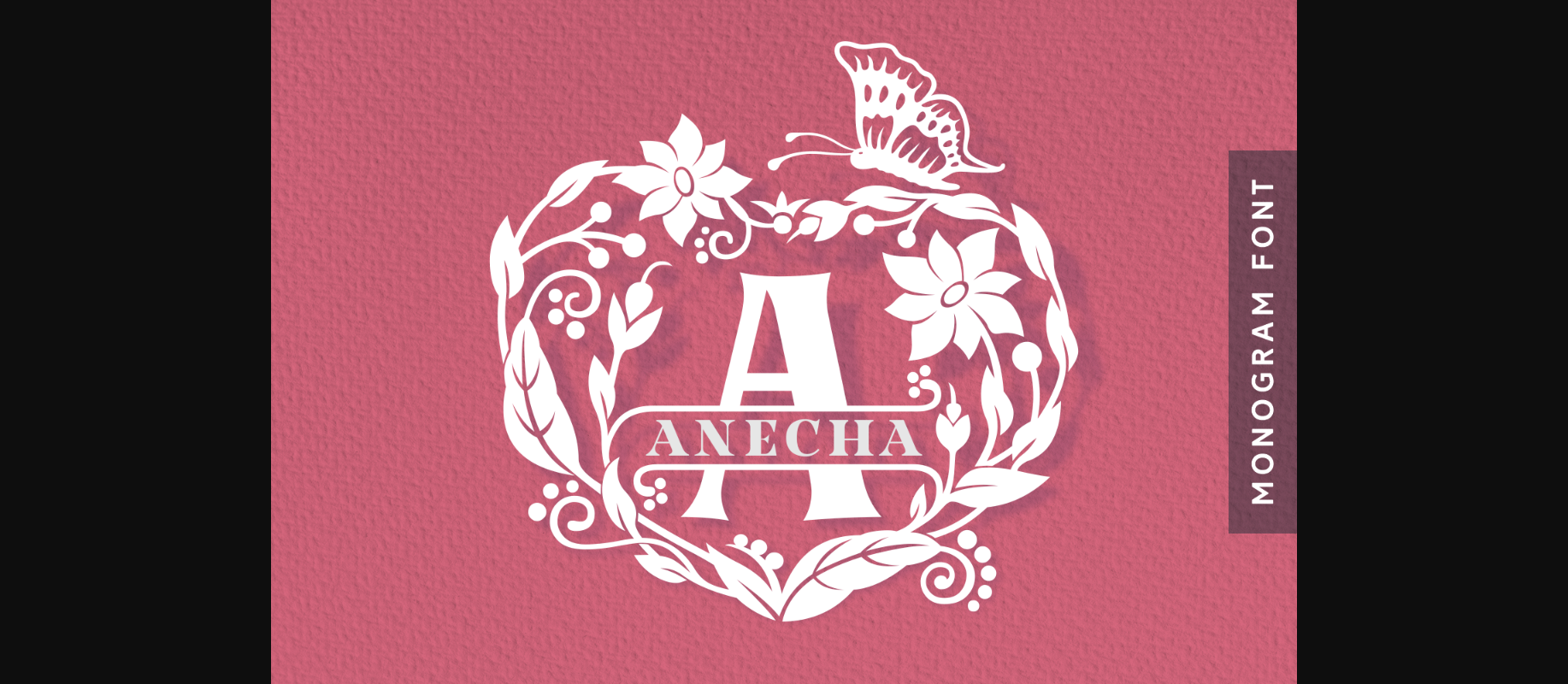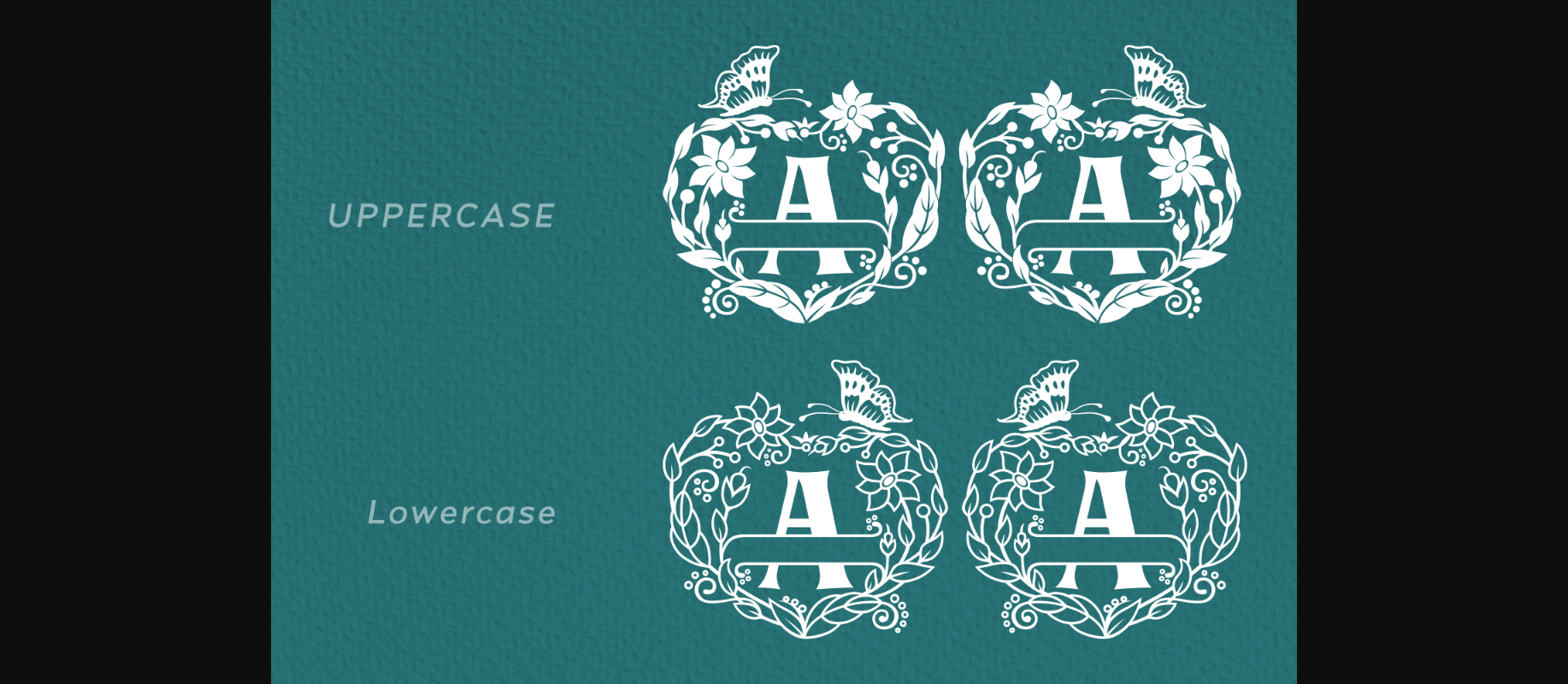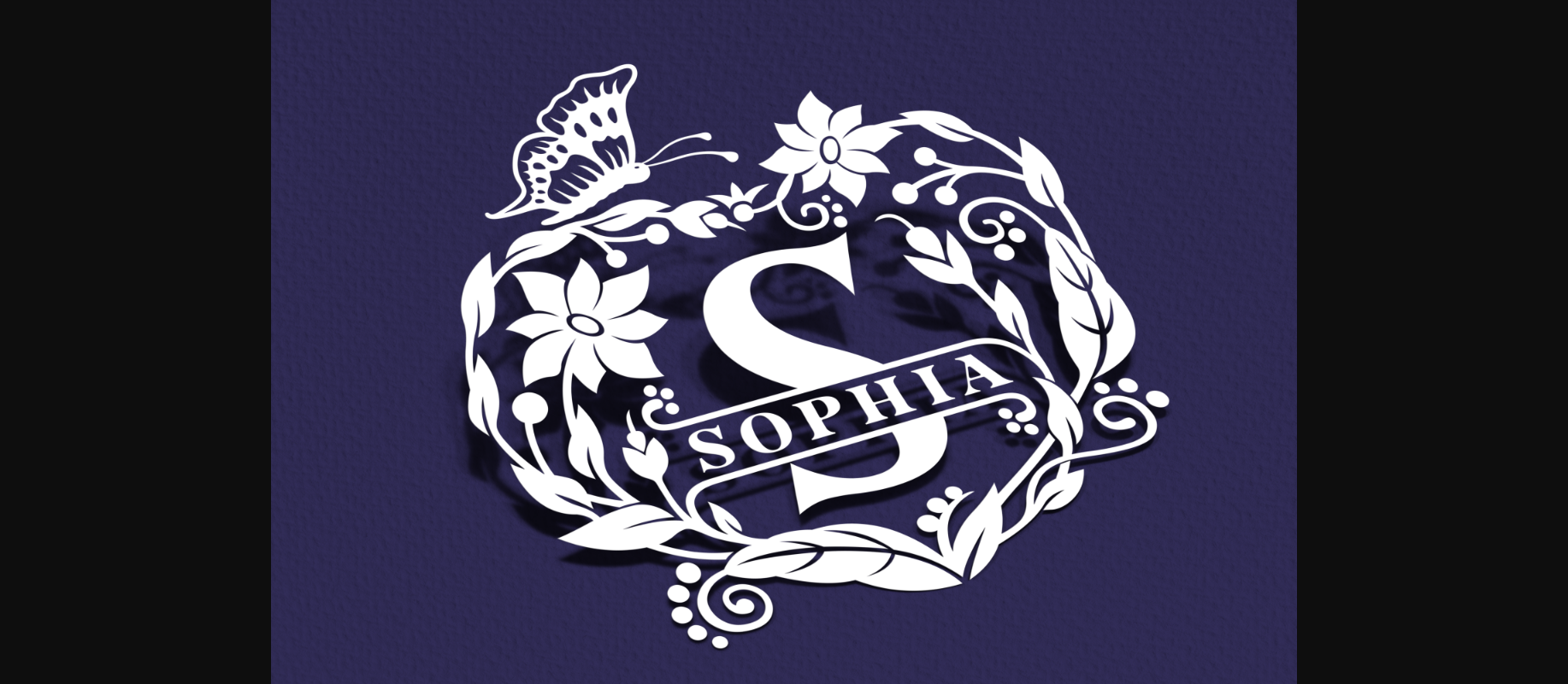
Anecha Font
About Anecha Font
Anecha is a ravishing decorative font, featuring incredibly detailed ornaments. This font is PUA encoded which means you can access all of the glyphs and swashes with ease!
Fall in love with its unique style and use it to create spectacular designs!